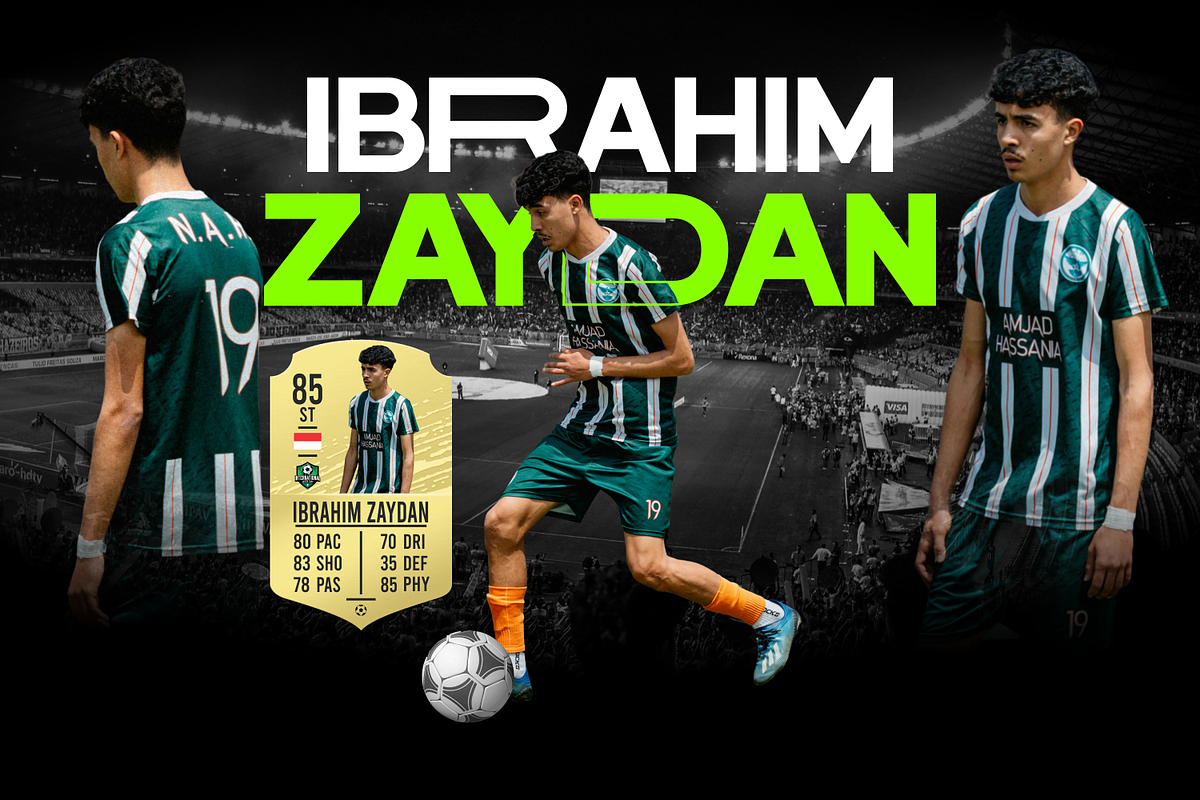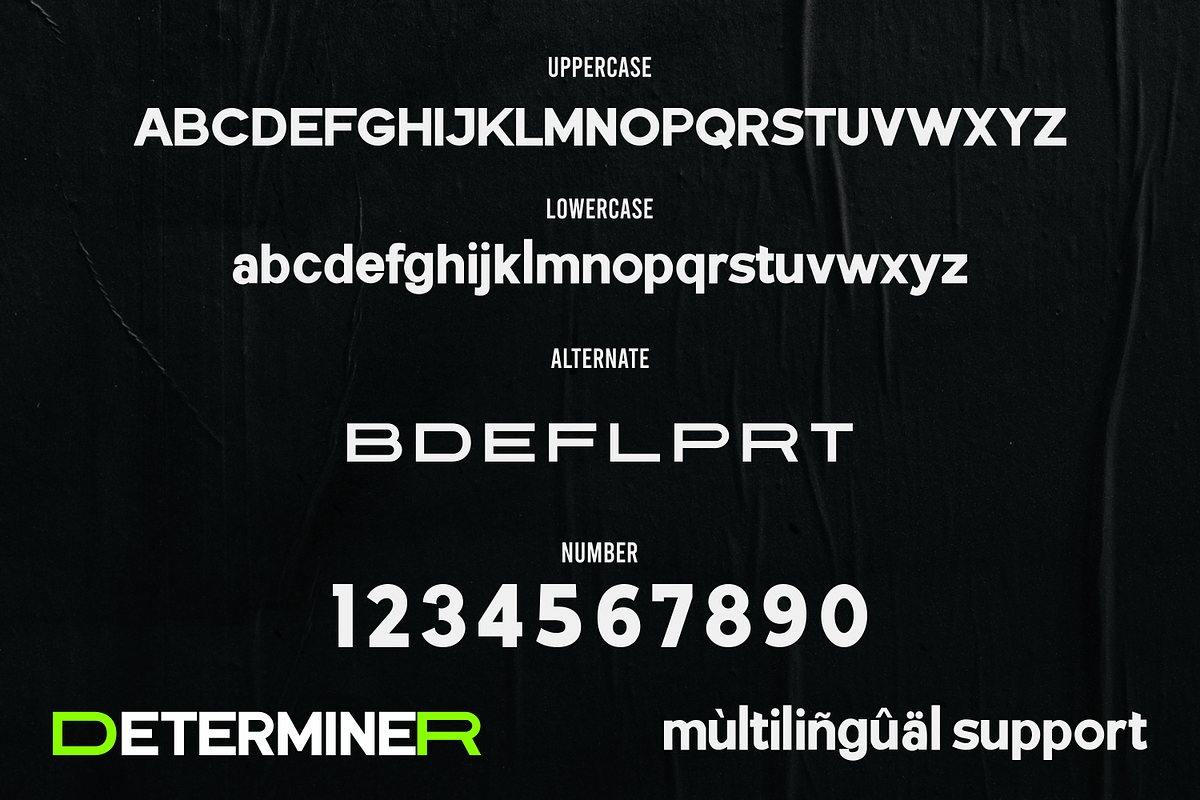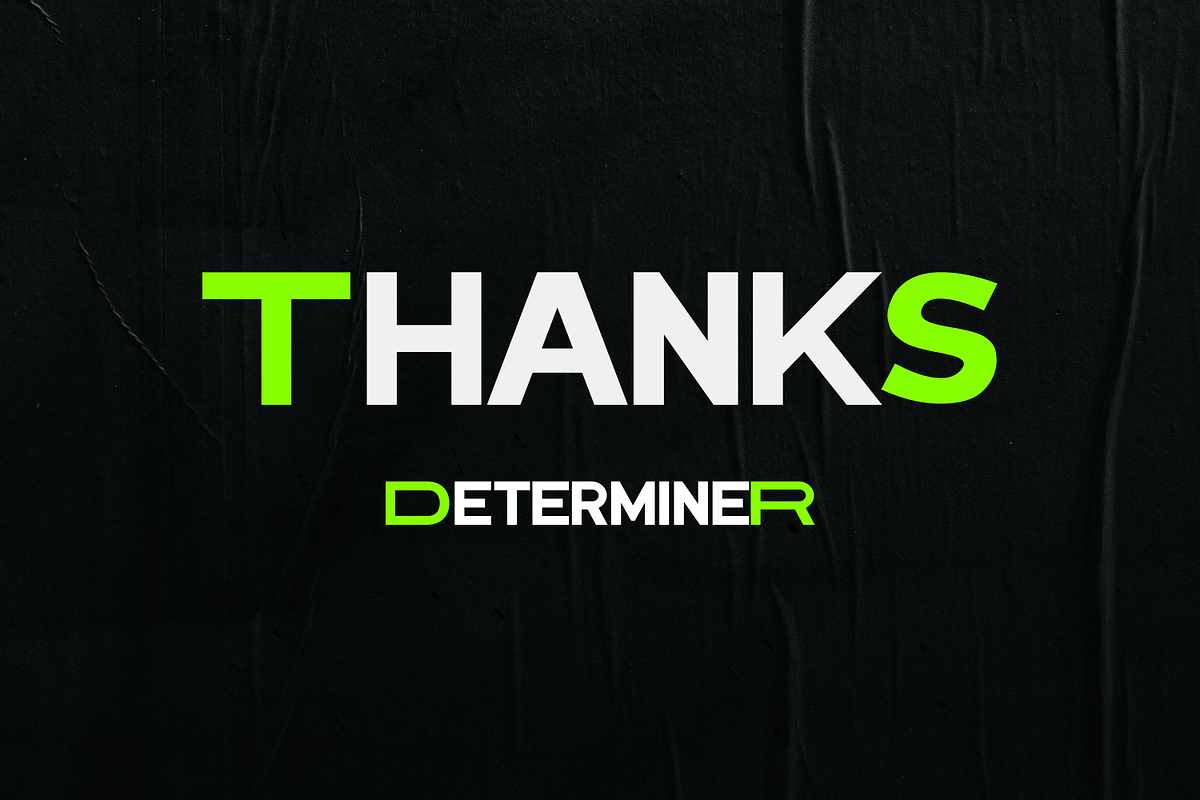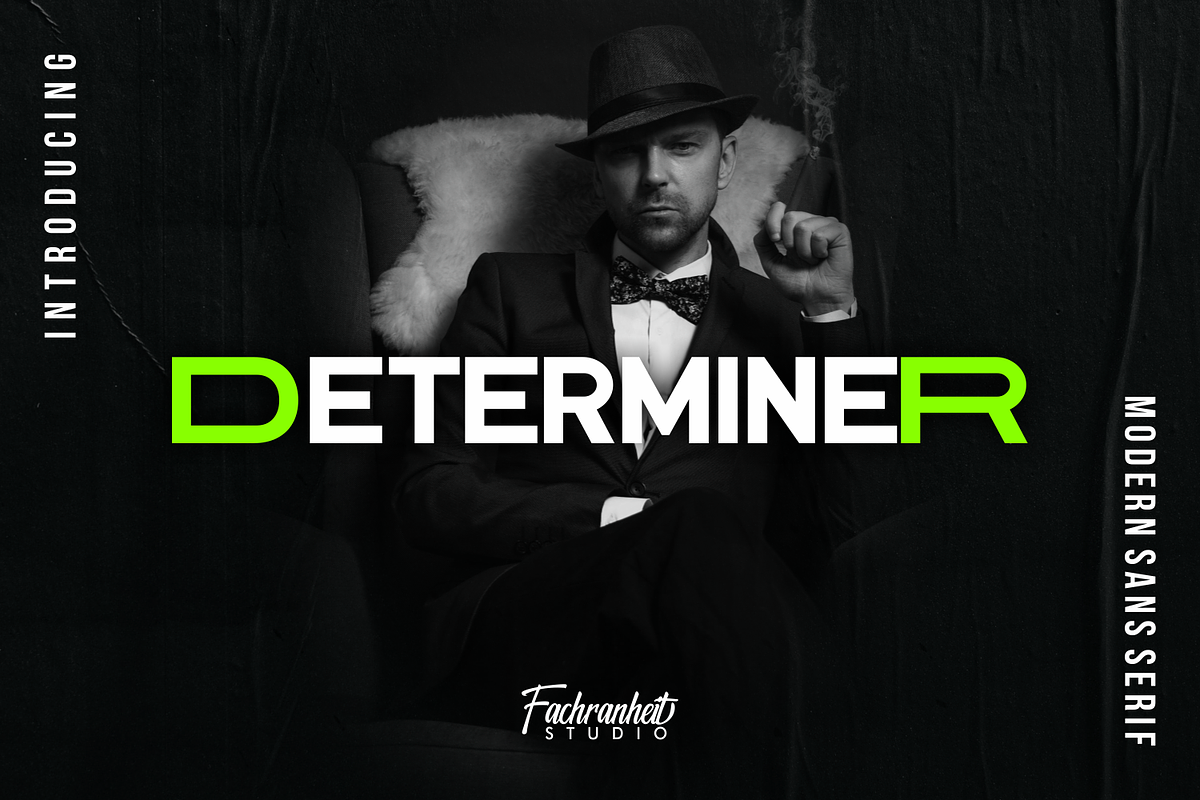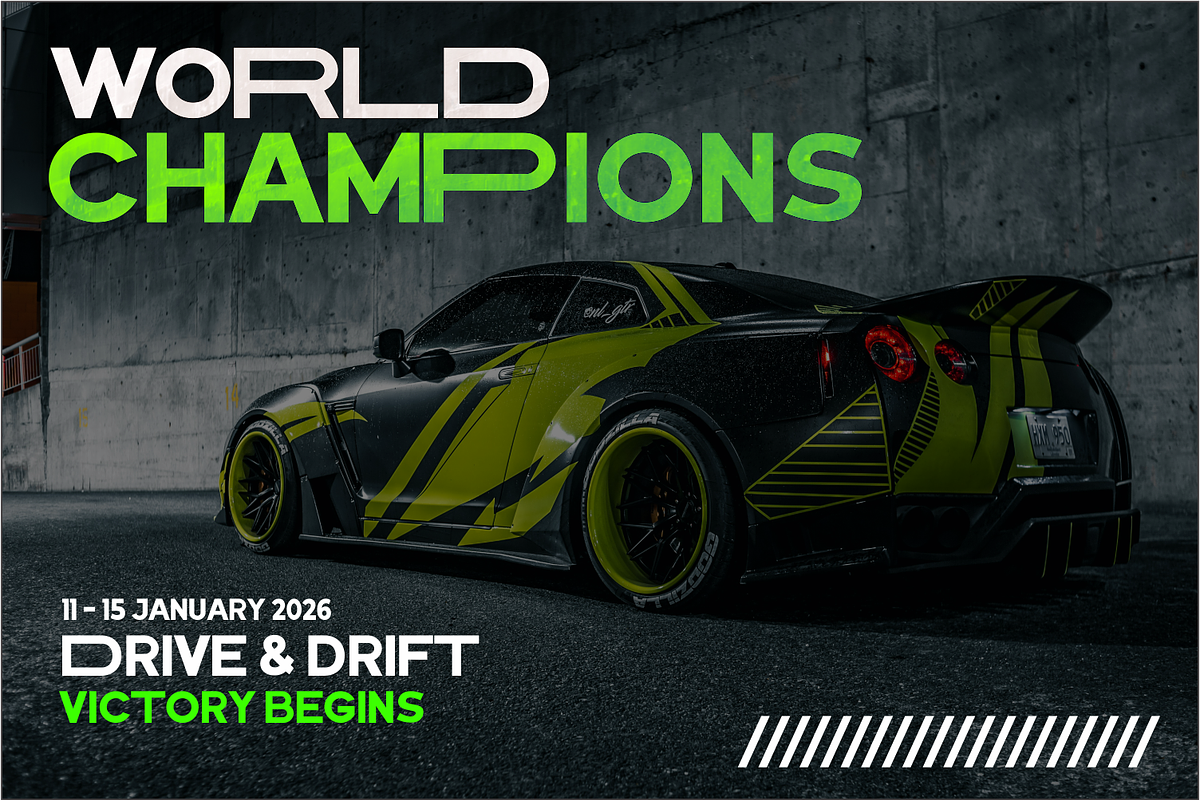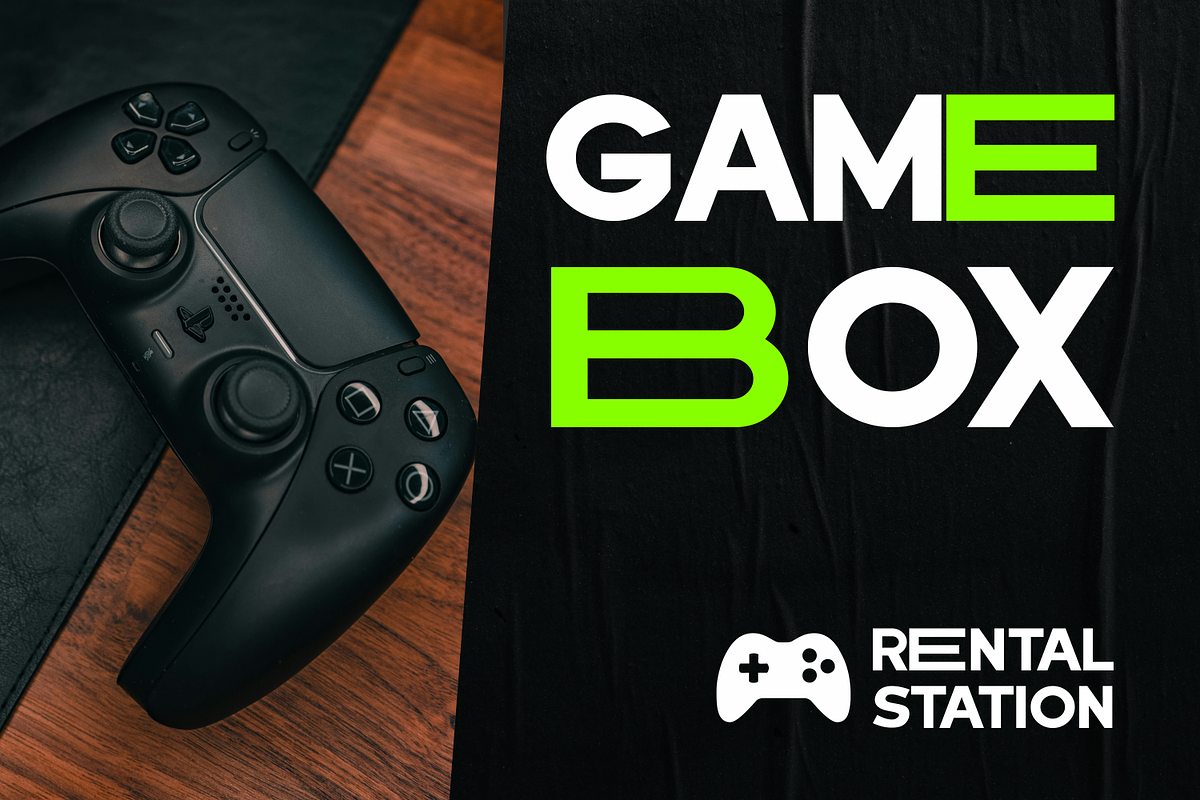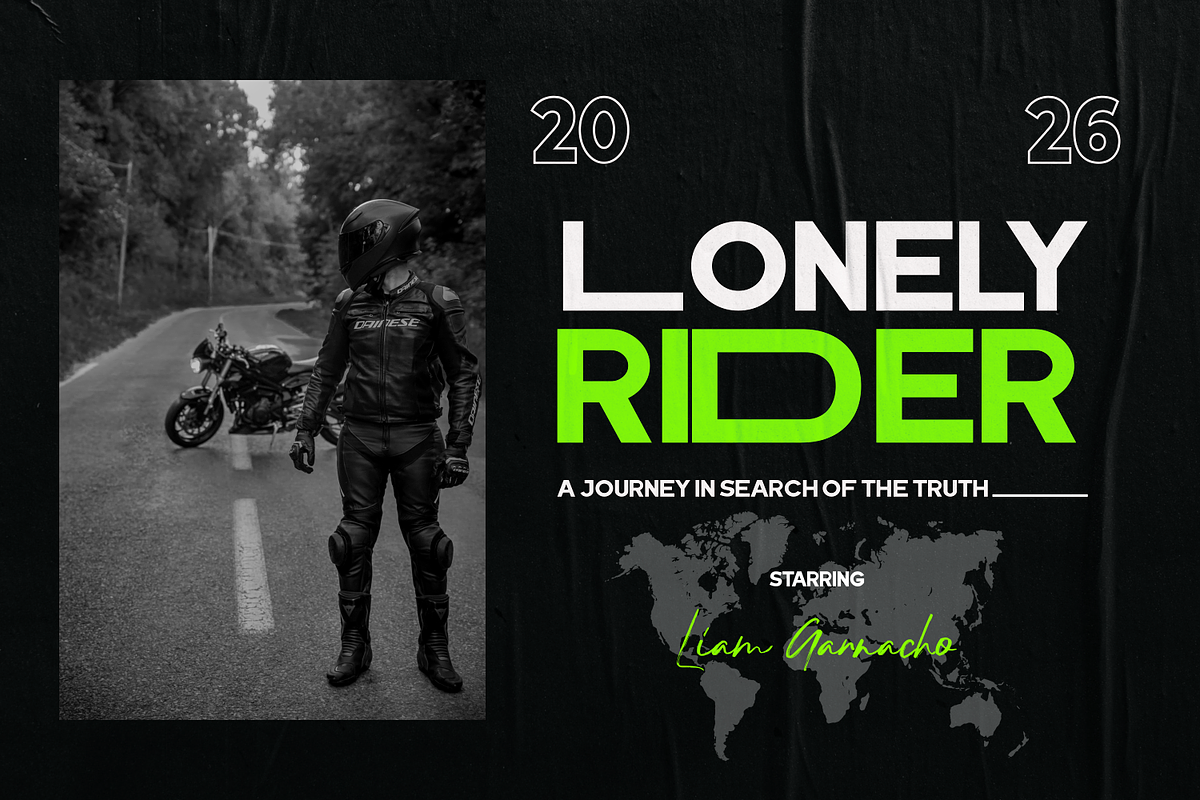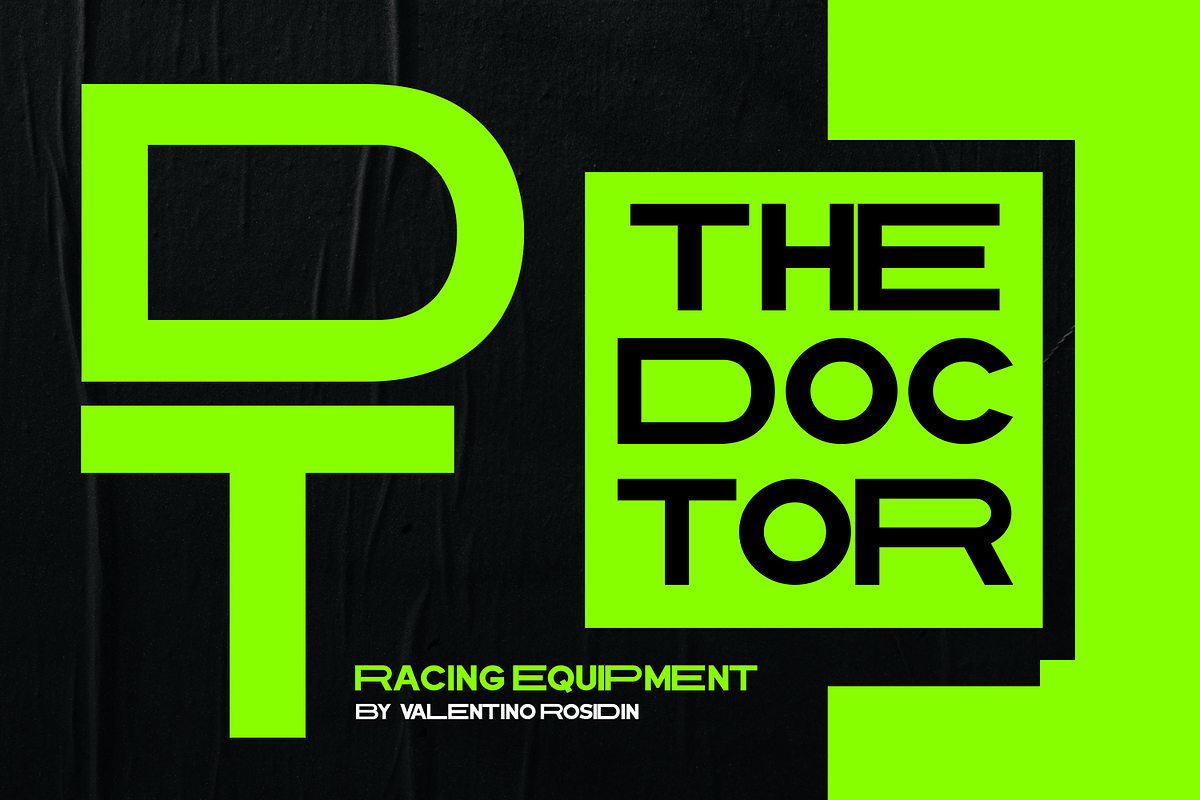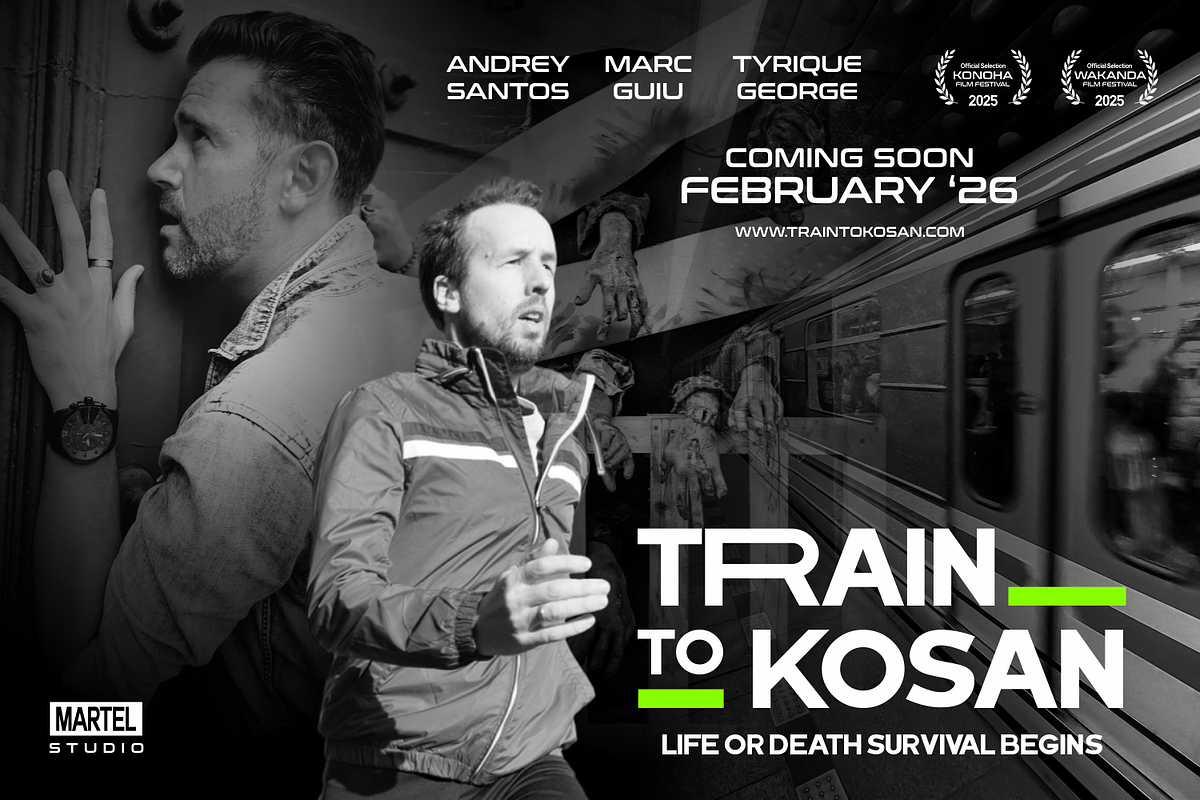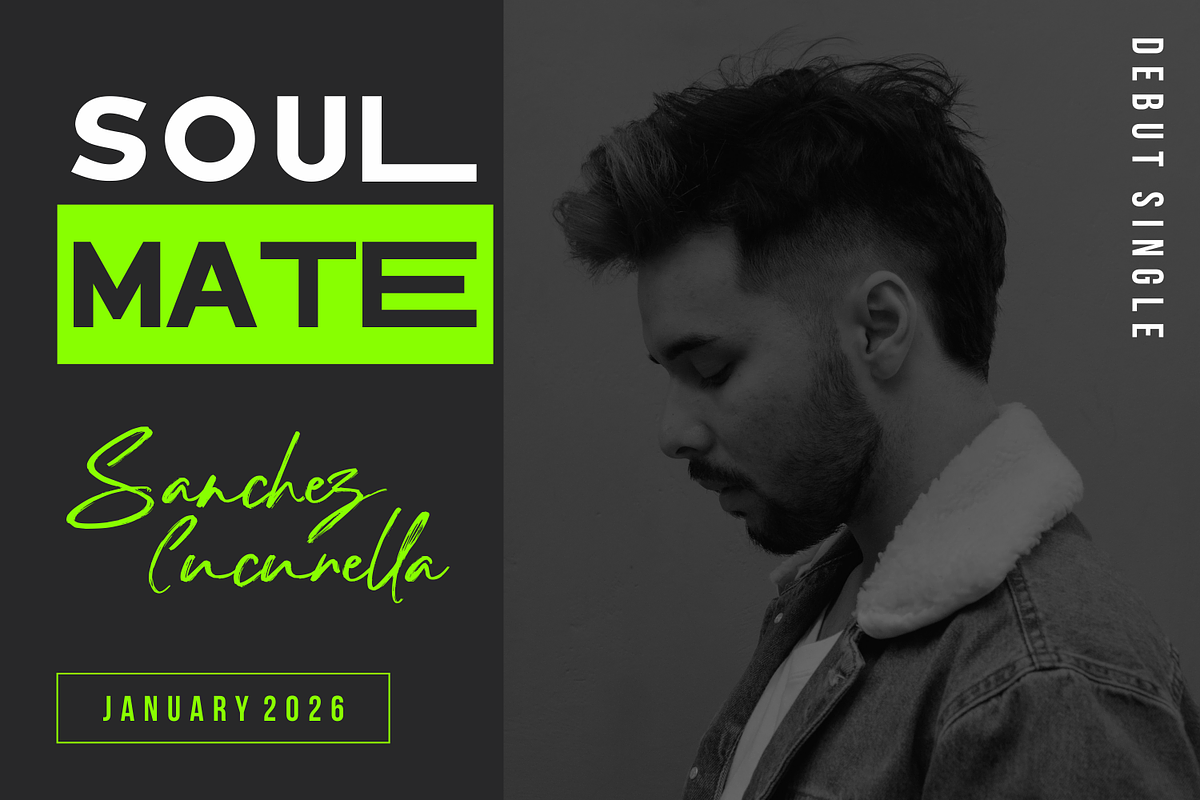
Determiner
Determiner is a Modern Sans Serif Display font
The unique characteristics of Determiner make it very suitable for various purposes such as quotes, t-shirt designs, flyers, movies title, youtube channels, labels, logos, branding, apparel costum etc.